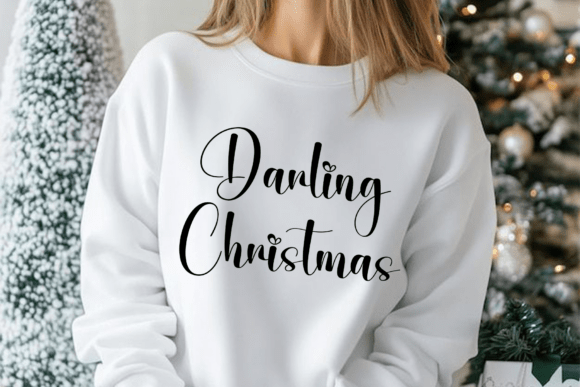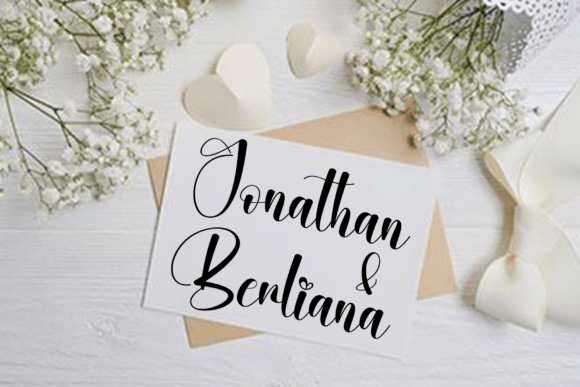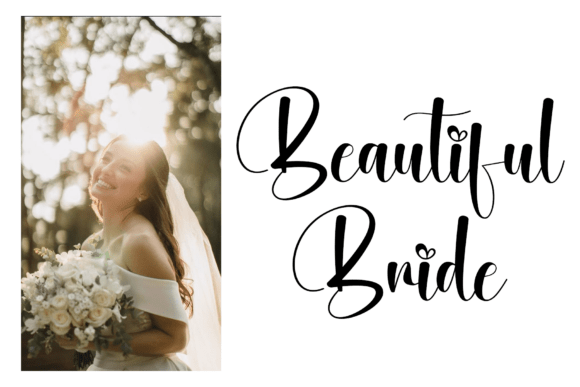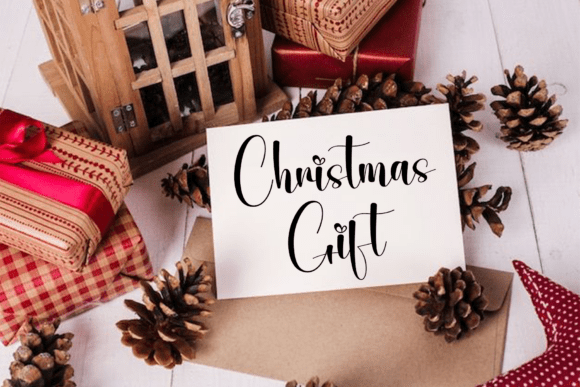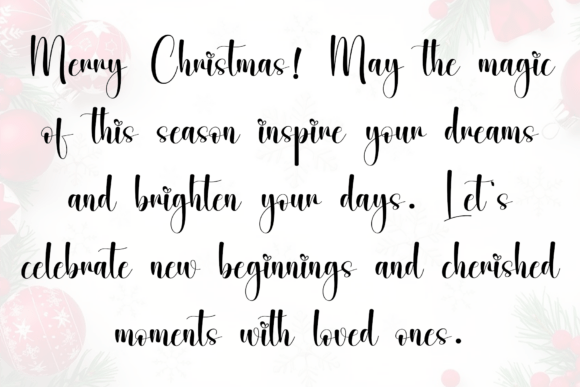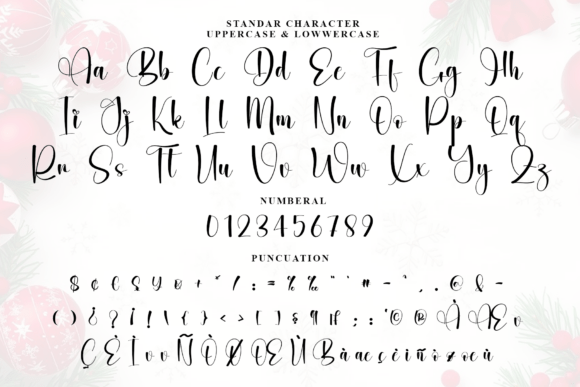
The Magic of the Holiday Season
There’s something special about the holiday season, isn’t there? The twinkling lights, the festive music, and of course, the beautiful typography that accompanies it all. As a designer, you know the importance of choosing the right font to evoke the right emotions and set the tone for your project. For me, there’s one font that always comes to mind during this time of year: Amore Christmas Font.
This luxurious calligraphy script font is the epitome of elegance and sophistication, perfect for high-end wedding invitations, formal event branding, and luxury product packaging. Its exquisite loops and flowing swashes make it a standout choice for designers who want to add a touch of vintage glamour to their designs. With its high-contrast strokes and dramatic capital letters, the Amore Christmas Font is a valuable addition to any designer’s toolkit.
Whether you’re working on a high-stakes design project or simply want to add a touch of magic to your holiday cards, the Amore Christmas Font is sure to impress. Its PUA-encoded writing signature font makes it easy to access all glyphs, swashes, and alternate characters, giving you endless possibilities for customization.
Amore Christmas Font Key Features
- Font Style: A beautiful, elegant, and festive script font perfect for Christmas and holiday designs.
- Unique Characteristics: The font features intricate details, swashes, and ornaments that evoke a sense of luxury and sophistication.
Amore Christmas Font Review
I recently had the chance to work with the Amore Christmas Font, and I must say it’s a delightful addition to any holiday project. ✨ The font’s elegant, cursive script is perfect for creating a warm and festive atmosphere. It’s ideal for Christmas cards, invitations, or even social media posts.
- The font’s flexibility: Amore Christmas Font comes in a variety of weights, from light to bold, allowing you to adjust the design to your liking.
- Customization options: The font includes a range of glyphs and ornaments, making it easy to add a personal touch to your design.
- Legibility: The font is highly legible, even in smaller sizes, ensuring that your message is clear and easy to read.
However, there are a few limitations:
- Lack of boldness in the light weights: While the font has a range of weights, the light weights can feel a bit too light and may not provide enough contrast.
Overall, I’m impressed with the Amore Christmas Font’s potential, but I’d love to see some improvements in the areas mentioned above. With a bit of tweaking, this font could be a true showstopper for any holiday design project. ⚠️
Tips for Getting the Most Out of Amore Christmas Font
Here are some tips for getting the most out of Amore Christmas Font:
- Use Amore Christmas Font for holiday-themed designs, such as Christmas cards, invitations, and decorations.
- Combine Amore Christmas Font with other festive graphics, such as snowflakes, holly, and reindeer, to create a cohesive look.
- Experiment with different font sizes and colors to add visual interest to your designs.